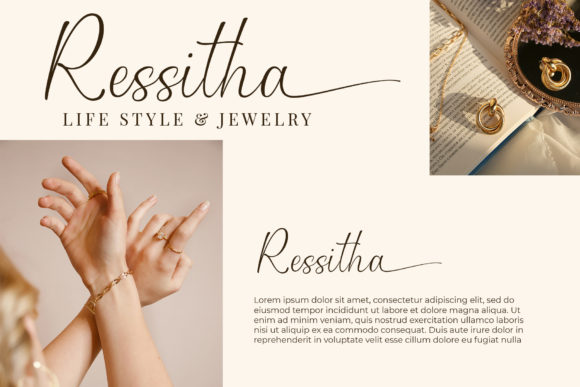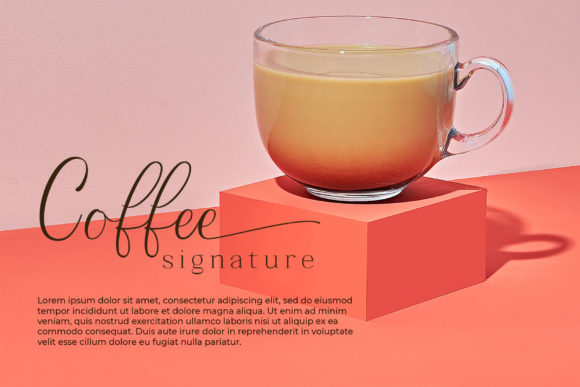
Modany Font
db-ku.com - Script & Handwritten -- Modany is a sweet and cursive handwritten font. This gentle font will look gorgeous on a variety of design ideas. It will add a joyful and romantic touch to each of your projects! This font is PUA encoded which means you can access all of the amazing glyphs and ligatures with ease!